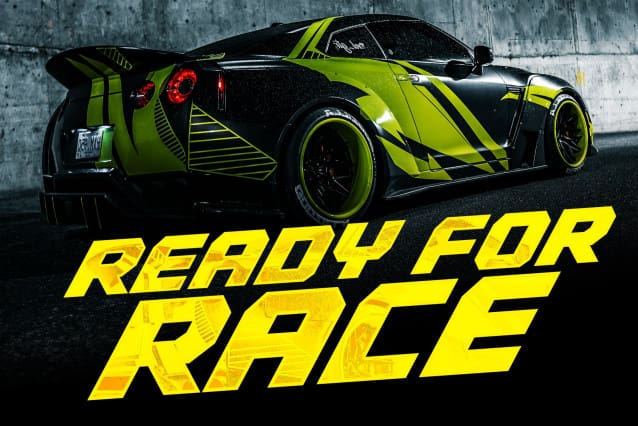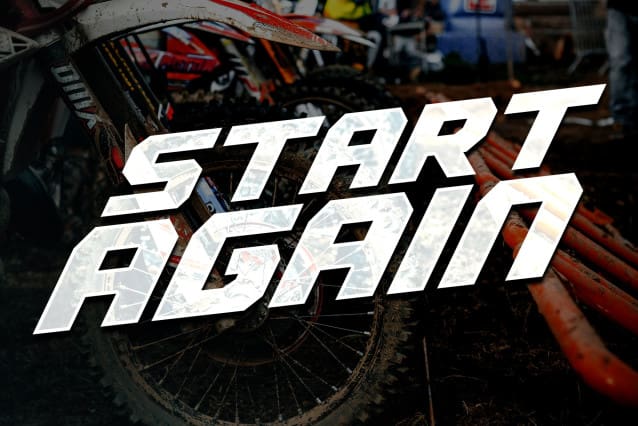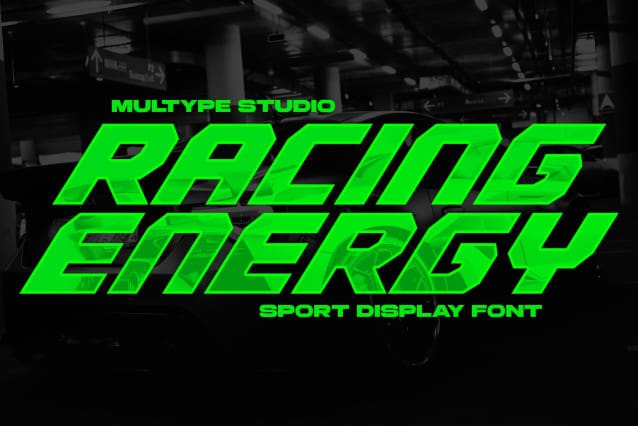
Racing Energy Font
Racing Energy Font is a font with a racing theme, bold, big, strong and fast. Even without the corner cut effect. This font still looks very fast and powerful. Because with consistent bold and slanted shapes.
RacingEnergy is perfect for racing product logos, racing game covers, sporting events, automotive posters, automotive magazine covers, branding, product designs, labels and other creative projects.